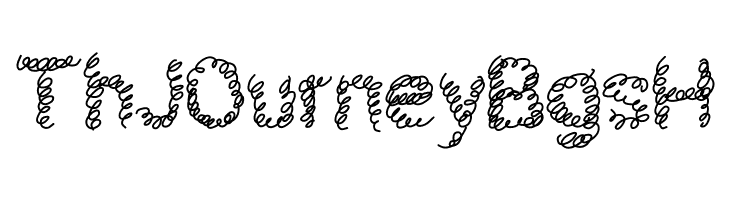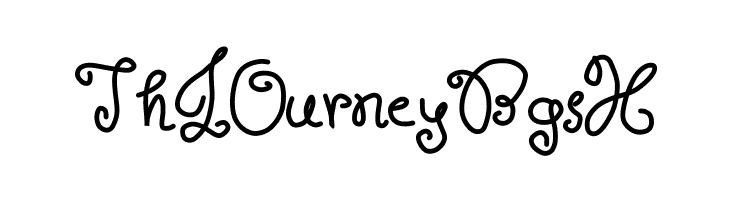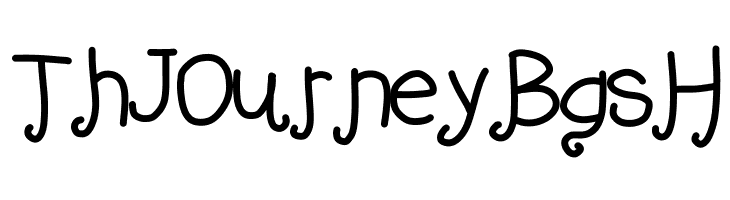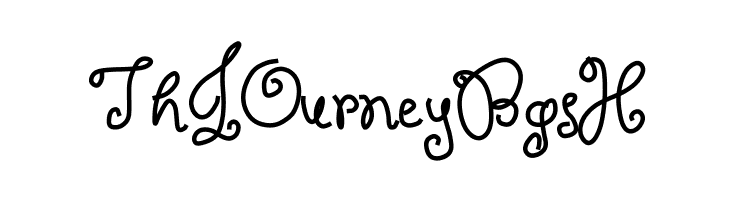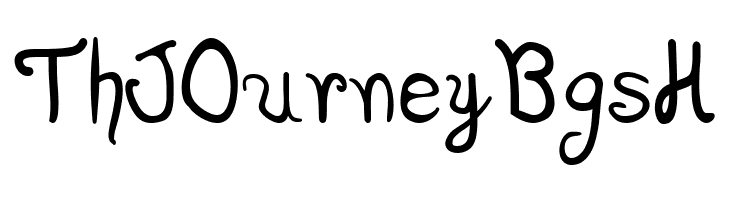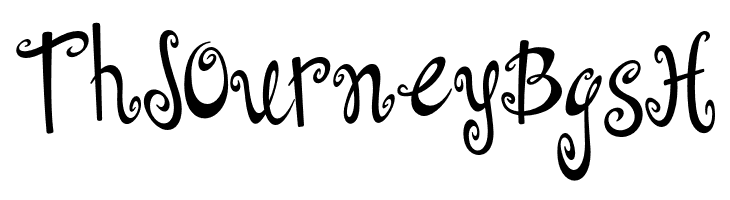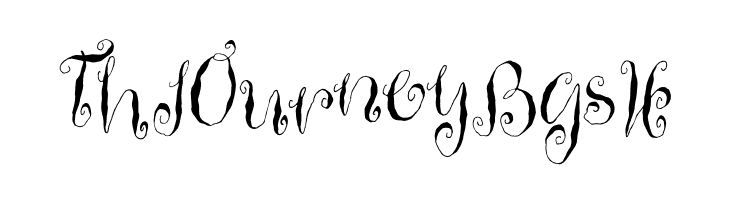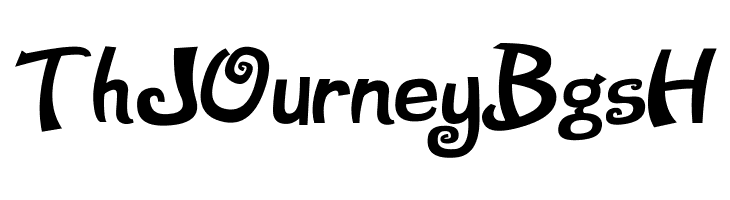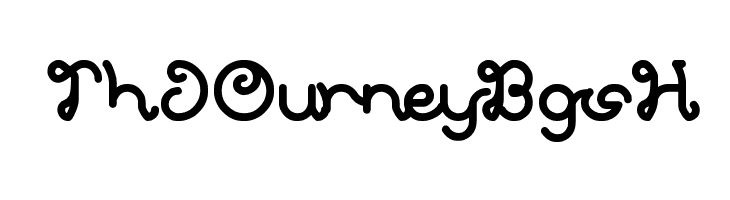
A whimsical, curly font with playful loops and swirls.
A whimsical and decorative font with curly, looping strokes and artistic flourishes.
A playful, curly serif font with a whimsical and friendly style.
A whimsical, curly decorative font with playful loops and swirls.
A playful and whimsical font with curly, flowing strokes and artistic flair.